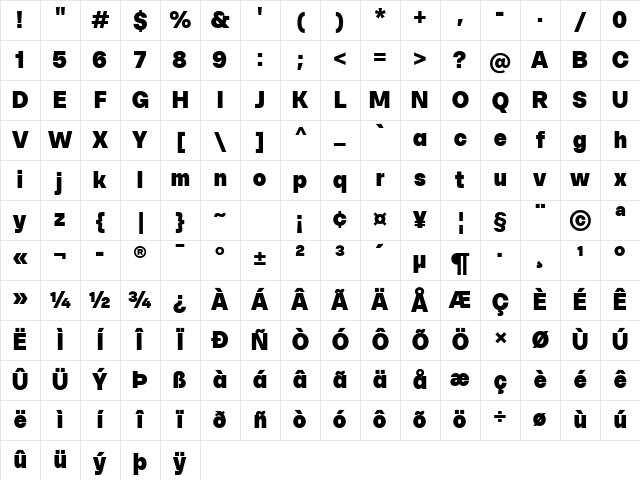
SFT Schrifted Sans TRIAL Black Comp Free Font
SFT Schrifted Sans TRIAL Black Comp
Foundry: Schrifteria Foundry
Designer: Yulia Gonina
Design Context for SFT Schrifted Sans TRIAL
SFT Schrifted Sans TRIAL is a composed and adaptable typeface that performs quietly and consistently across a wide range of design contexts.